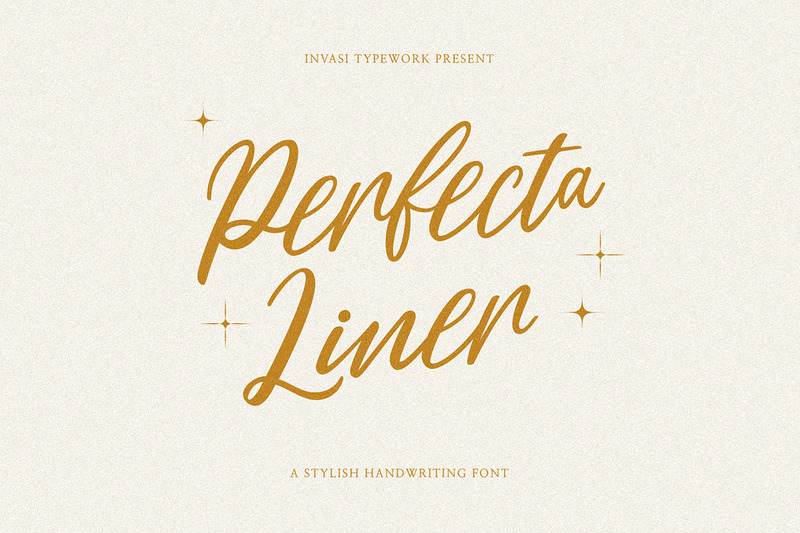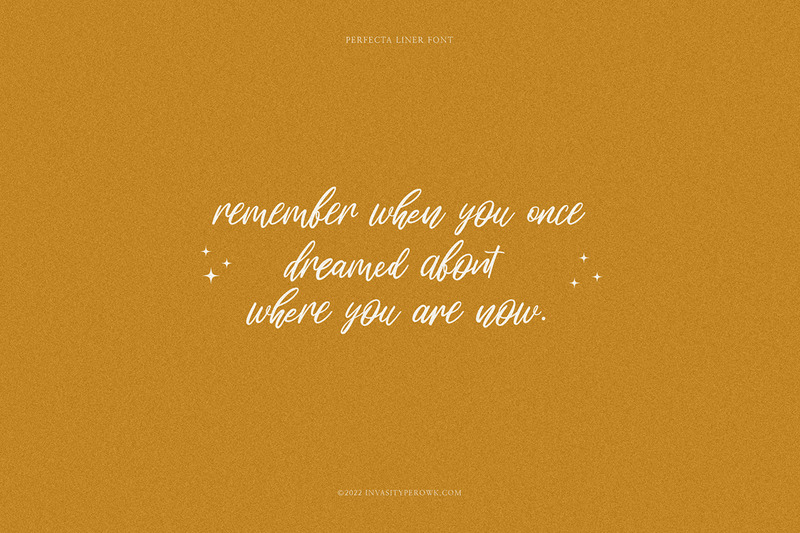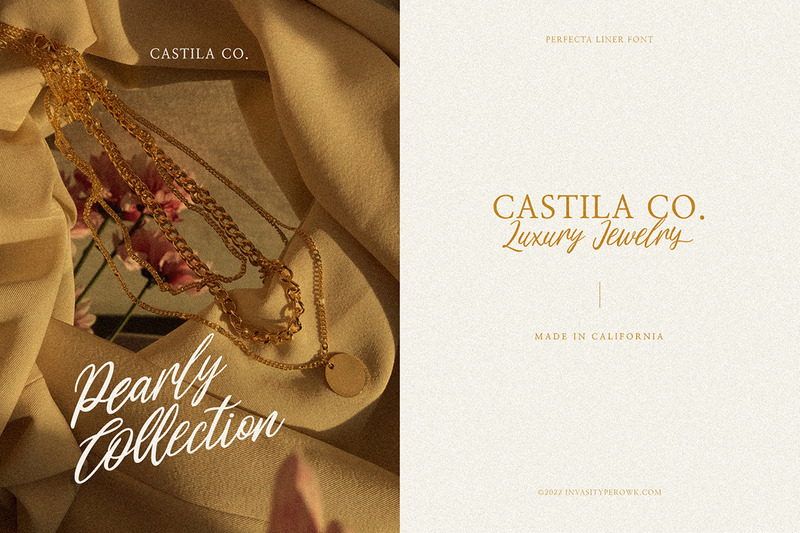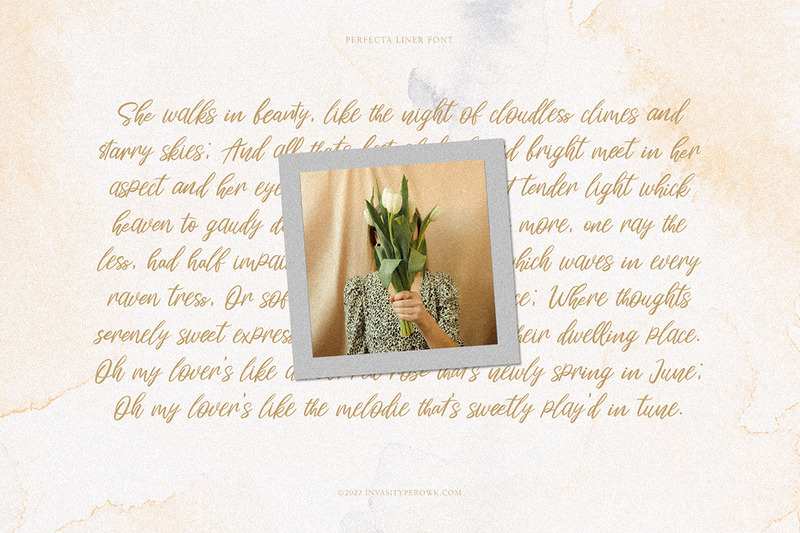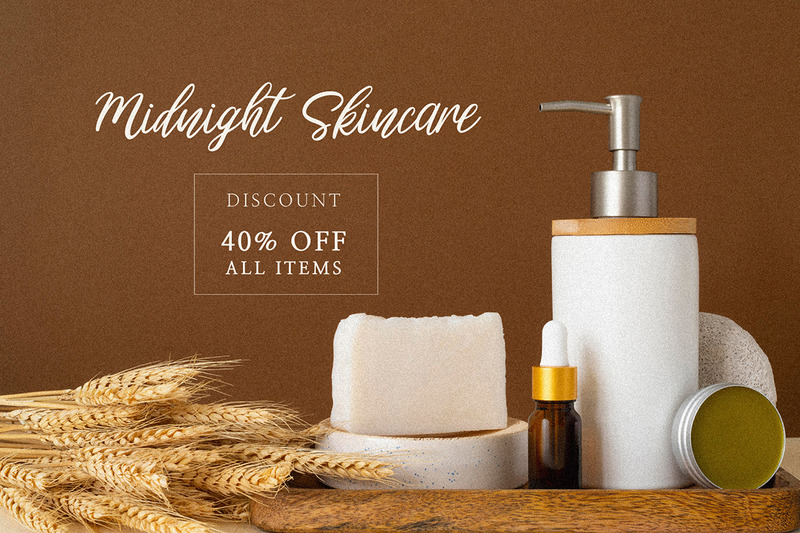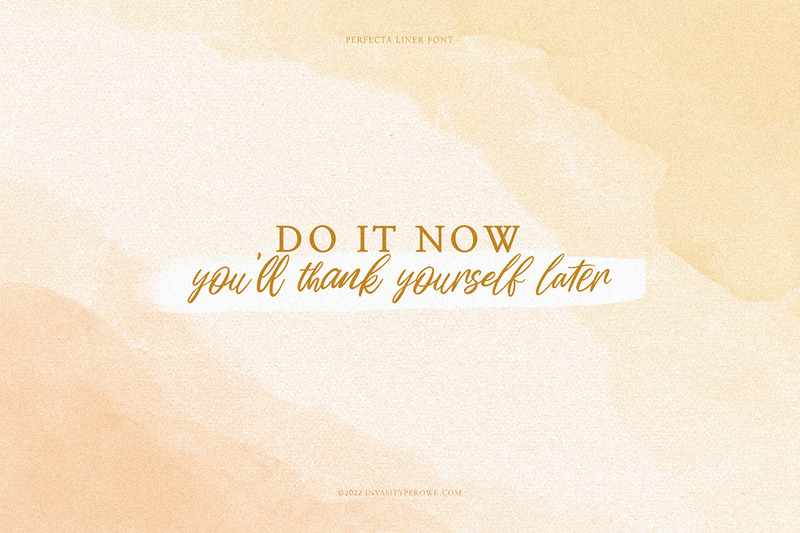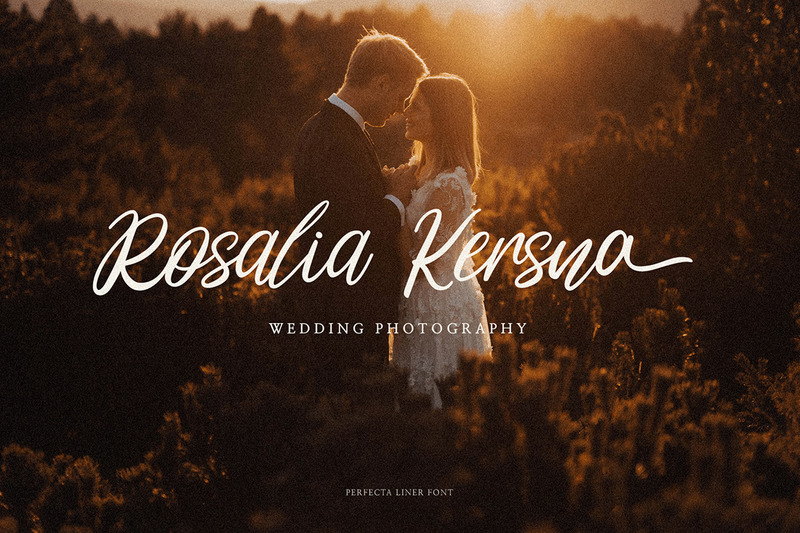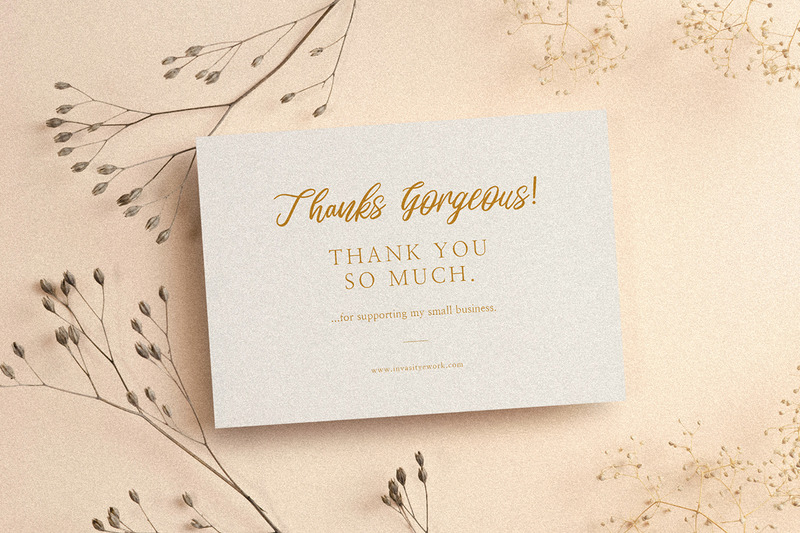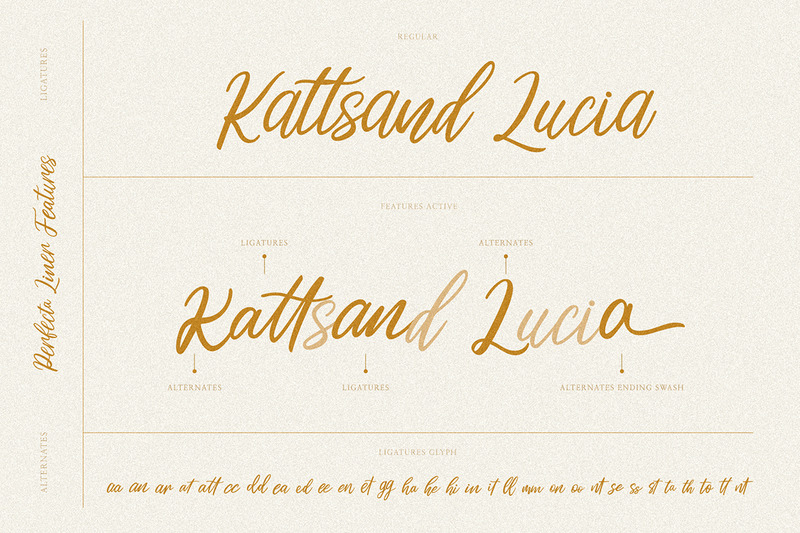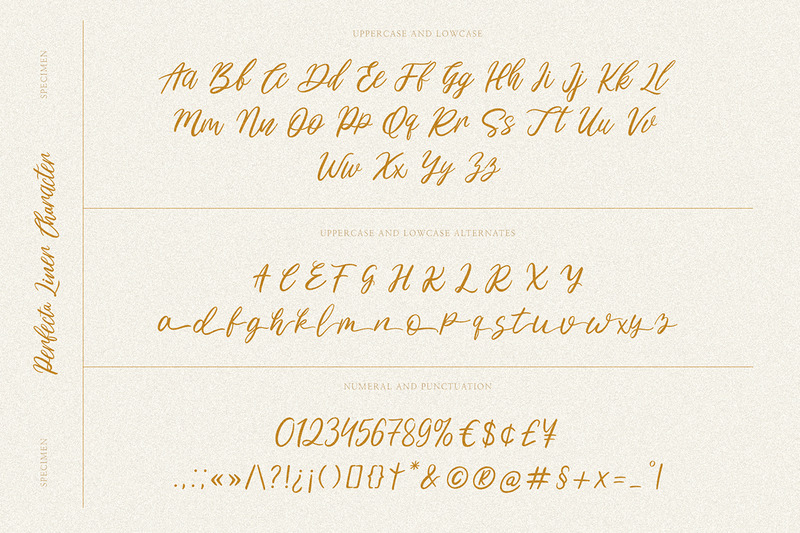
Perfecta Liner - Handwritten Script
Perfecta Liner is a handwritten organic font that is perfect for branding, signatures, wedding invitations, promotions, product packaging, and more. Perfecta Liner is a modern, clean, authentic font. Perfecta Liner comes with ligatures, alternates, and supports 60+ Latin-based languages.
• Uppercase & Lowercase
• Numerals & Punctuation
• Alternates and Ligatures